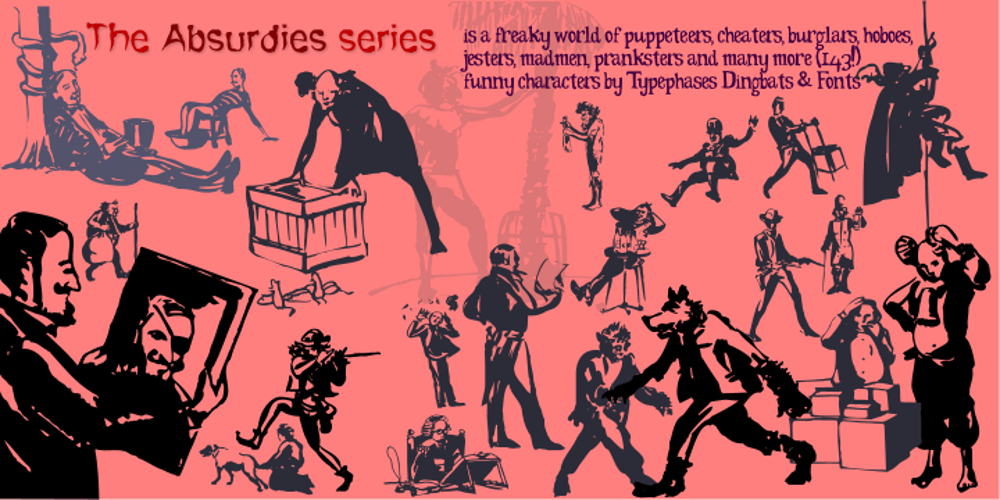
Absurdies Font Family was designed by Joan M. Mas and published by Typephases. Absurdies contains 3 styles and family package options. Absurdies is a trilogy of pictorial typefaces with lots of mischief, fun, weirdness, black humour and amusement. It includes 143 digitized illustrations. You will find many inexplicable behaviours, madmen, strange occupations, absurd and chaos-loving characters, and general whimsy. This little crowd can be used in many ways, from spot illustration to big illustration work or graphic designs, taking advantage of the vectorial format of the font file. The characters in Absurdies (together with their kin, the Illustries, Whimsies, Ombres, Bizarries and Genteta dingbats) are drawings from the sketchpad of Joan M. Mas, drawn from imagination and with no reference, except in a handful of cases pulled from historical photography. He wanted an easy-to-use format to collect his hundreds of imaginary ink drawings and he realized a digital typeface was an ideal solution. Having the illustrations gathered in a font file means you can use them instantly in any program you like. You may choose to use the images out of the box, or further customize them with colours and textures. The possibilities are endless.